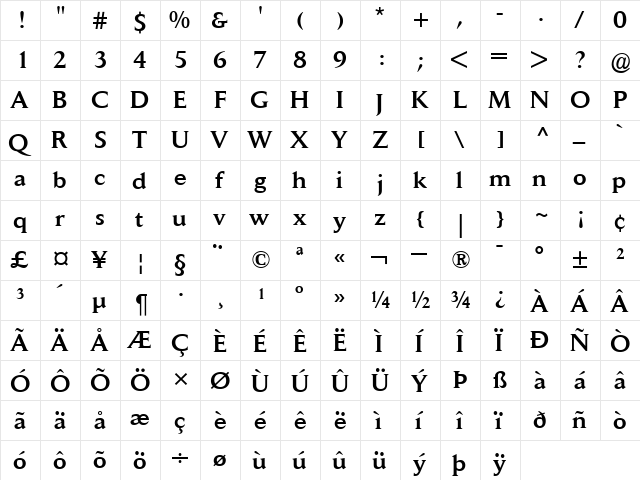
JaegerDailyNews-Medium Medium
JaegerDailyNews-Medium is a composed and adaptable typeface that performs quietly and consistently across a wide range of design contexts.